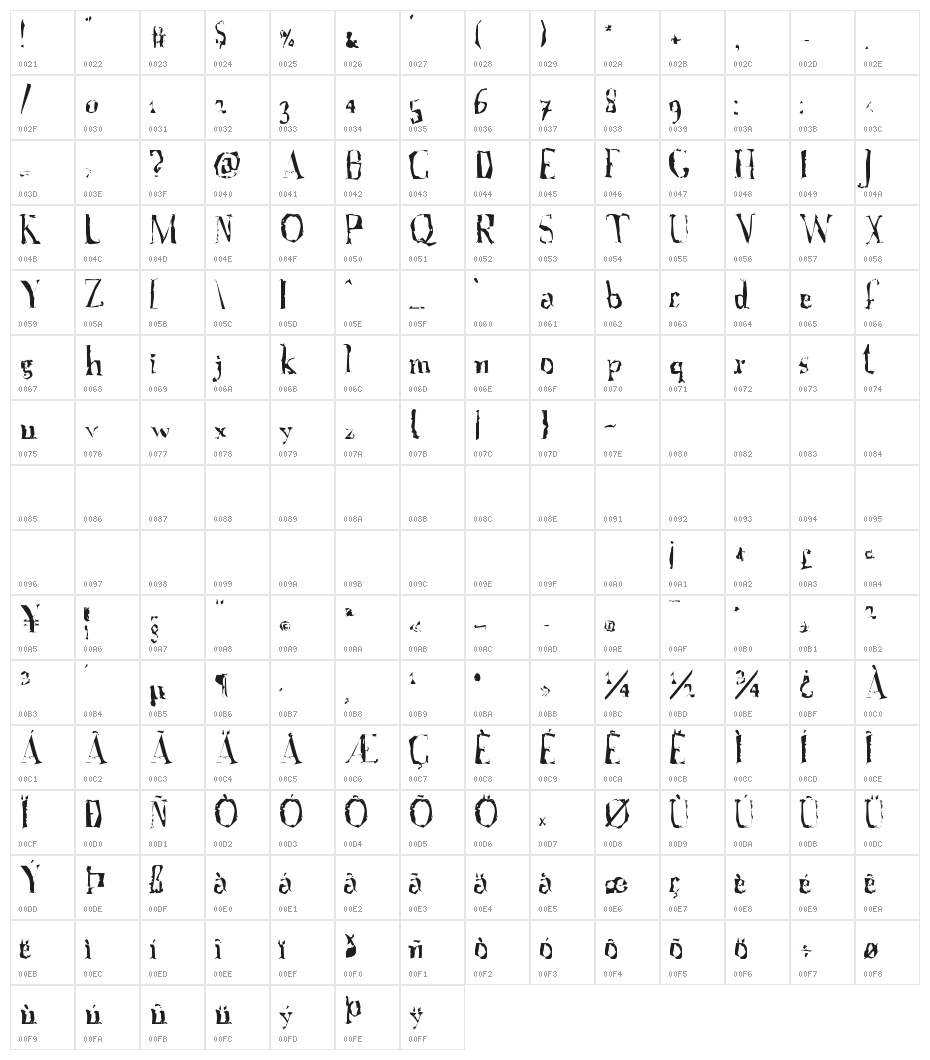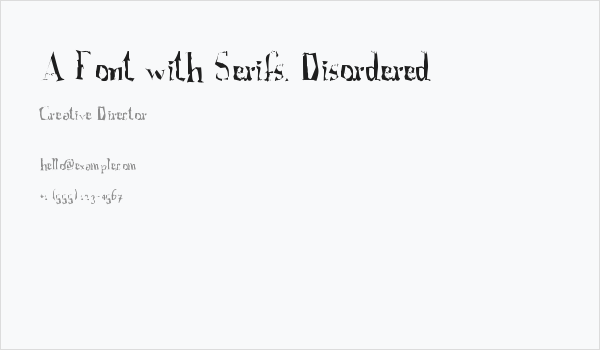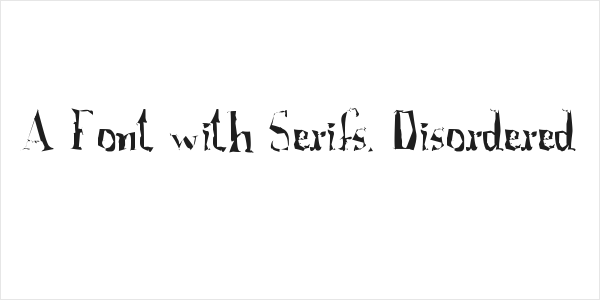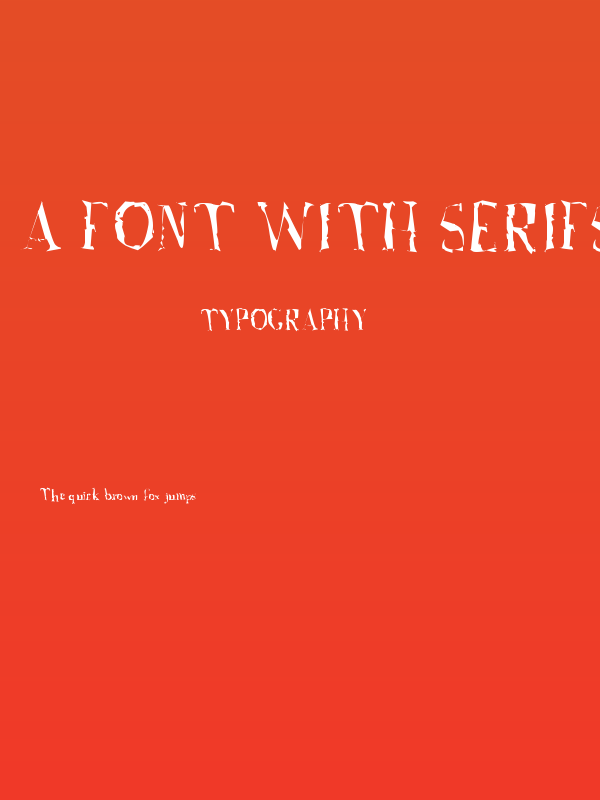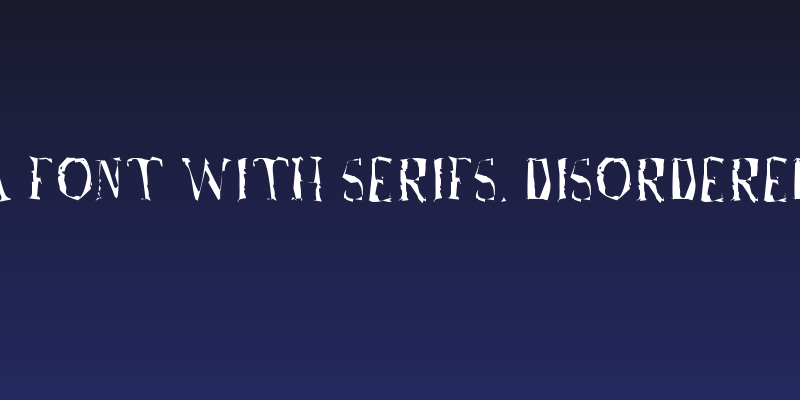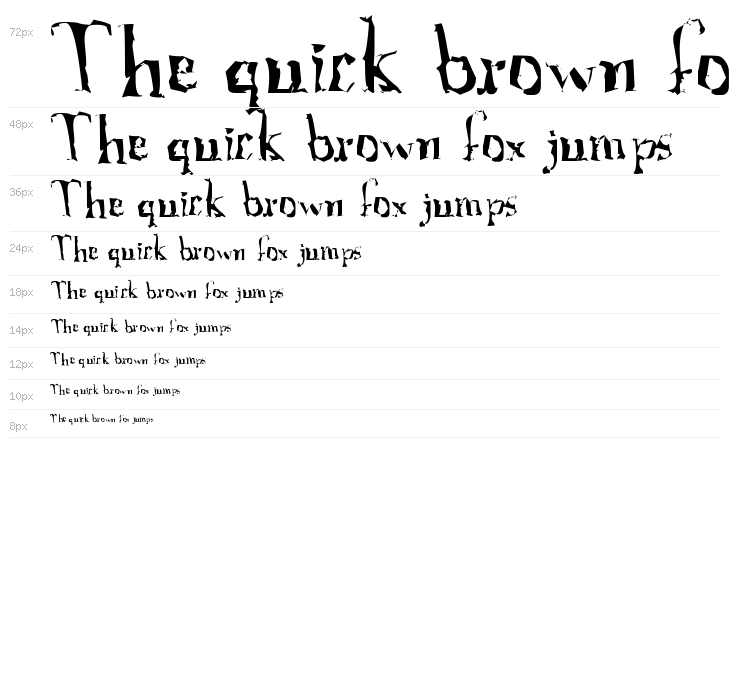
A Font with Serifs. Disordered Font
A Font with Serifs. Disordered Description
This font features a unique and artistic design with prominent serifs and a distressed, disordered appearance. The characters are bold and have a rough, uneven texture that gives them a hand-crafted look. The uppercase letters are tall and imposing, while the lowercase letters maintain a consistent style with slightly exaggerated serifs. The numbers and special characters follow the same rugged aesthetic, making the font suitable for creative and unconventional projects. Its distinctive style is perfect for capturing attention and conveying a sense of edginess or rebellion.
| Proposed Projects | Ideal for album covers, posters, branding for edgy or alternative products, and artistic projects requiring a bold statement. |